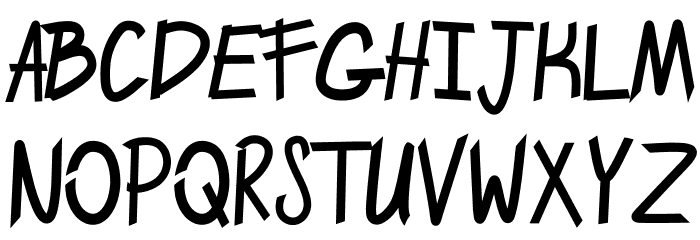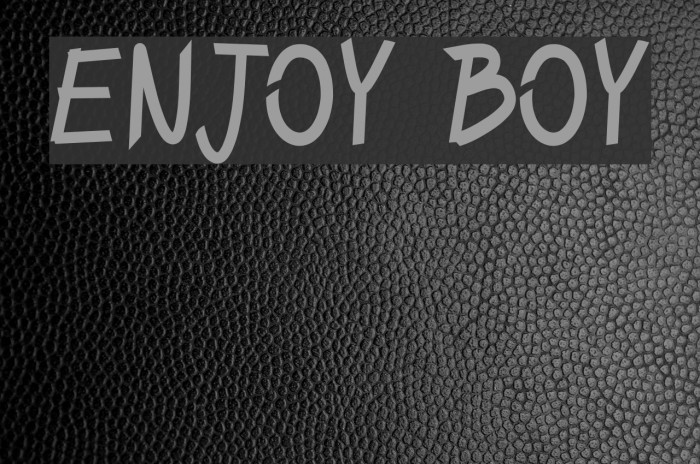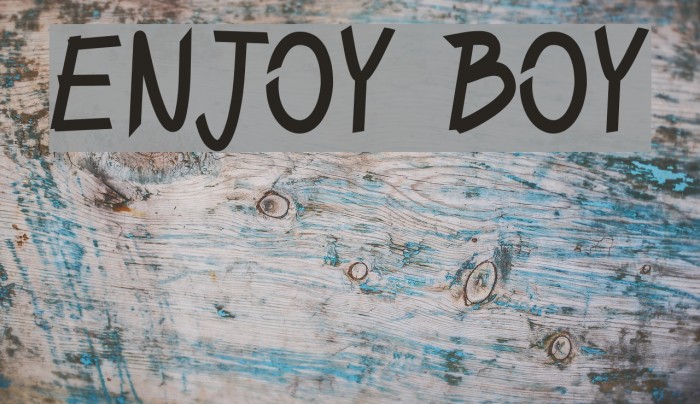
ENJOY BOY Font
This font features a playful and energetic style with a handwritten appearance. The letters are slightly slanted, giving a dynamic and informal feel. The strokes are bold and consistent, with a slight variation in thickness that adds to the casual aesthetic. The characters are well-spaced, ensuring readability while maintaining a lively rhythm. This font is ideal for projects that require a fun and approachable look, such as children's books, comic strips, or playful branding materials.
A playful, handwritten font with bold strokes and dynamic slant.
- Proposed Projects: Ideal for children's books, comic strips, playful branding, and informal invitations.
- Overall Style: Playful
- Use Case: Headlines, Logos, Informal Text